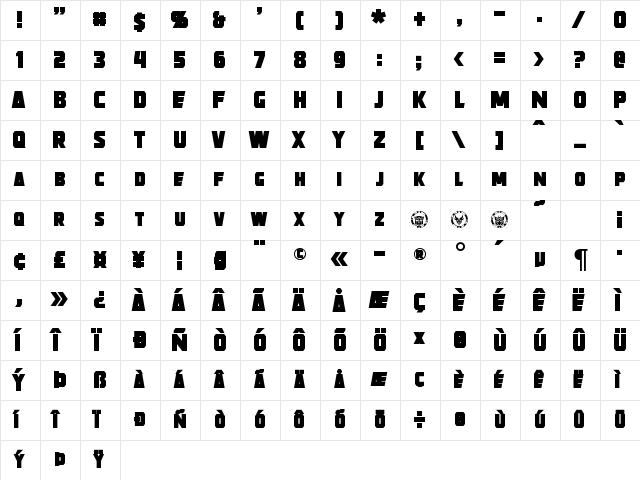
Strongarm Bold Font Preview
Strongarm Bold
Strongarm Bold Font Details
| Foundry | Neale Davidson |
| Designer | Neale Davidson |
Design Context for Strongarm Typeface
Strongarm is a composed and adaptable typeface that performs quietly and consistently across a wide range of design contexts. The heavy weight commands attention and anchors typographic hierarchies.